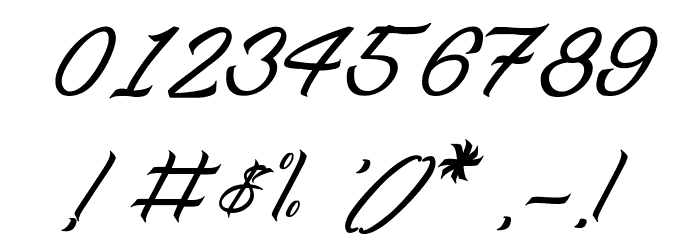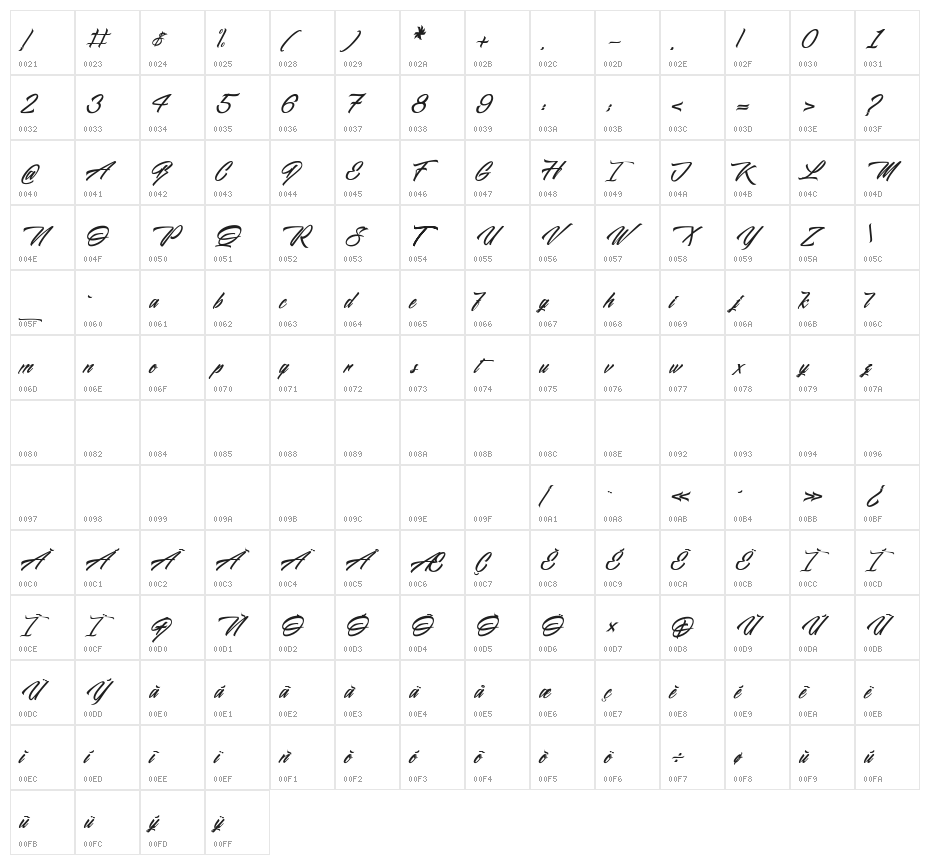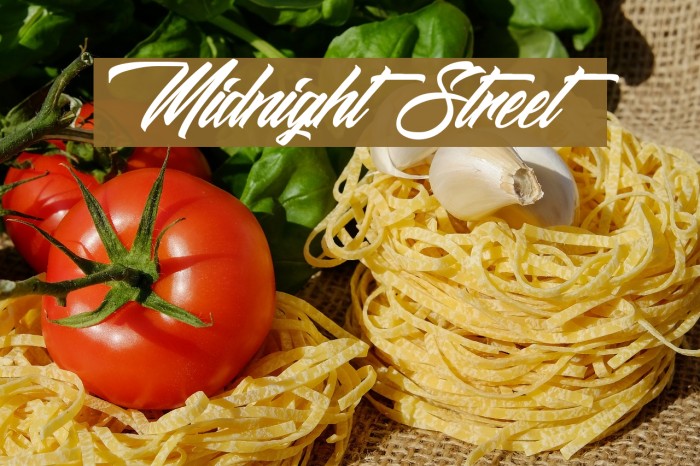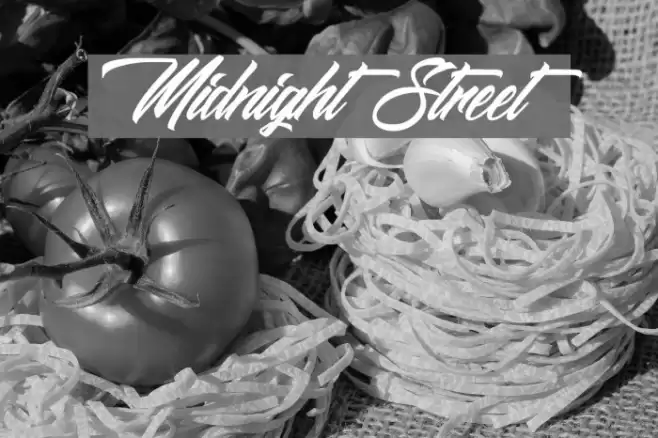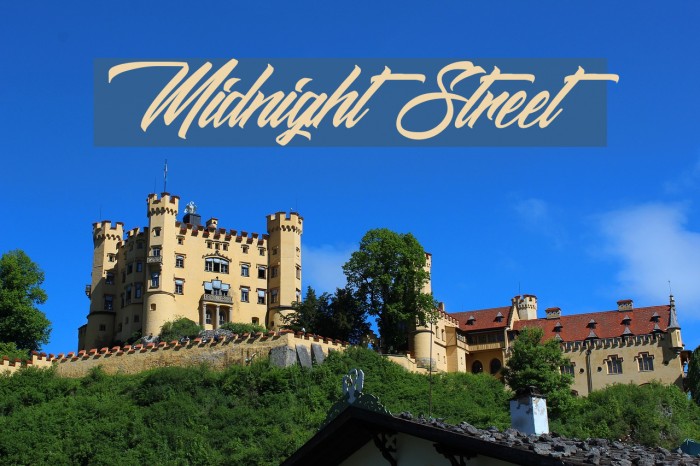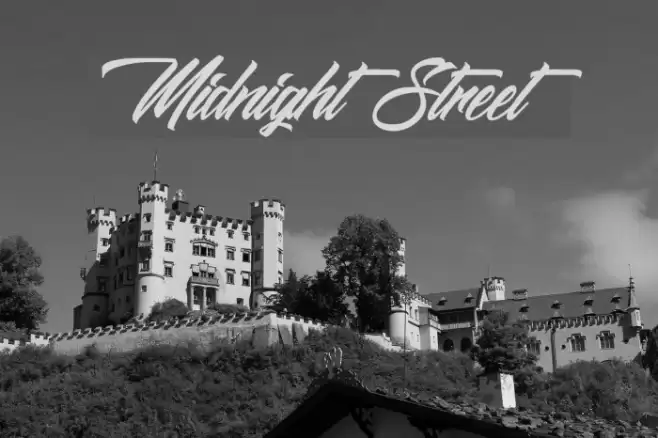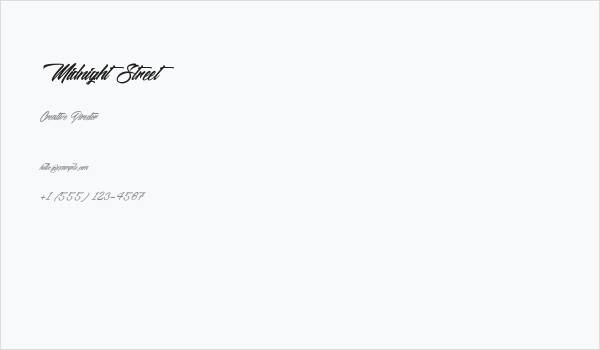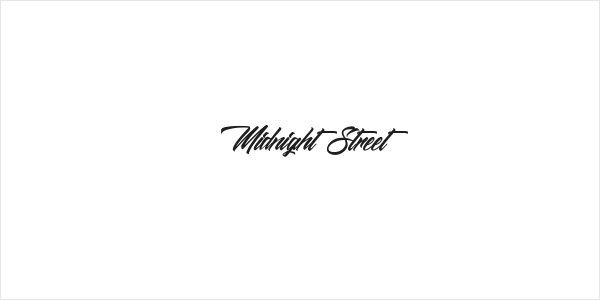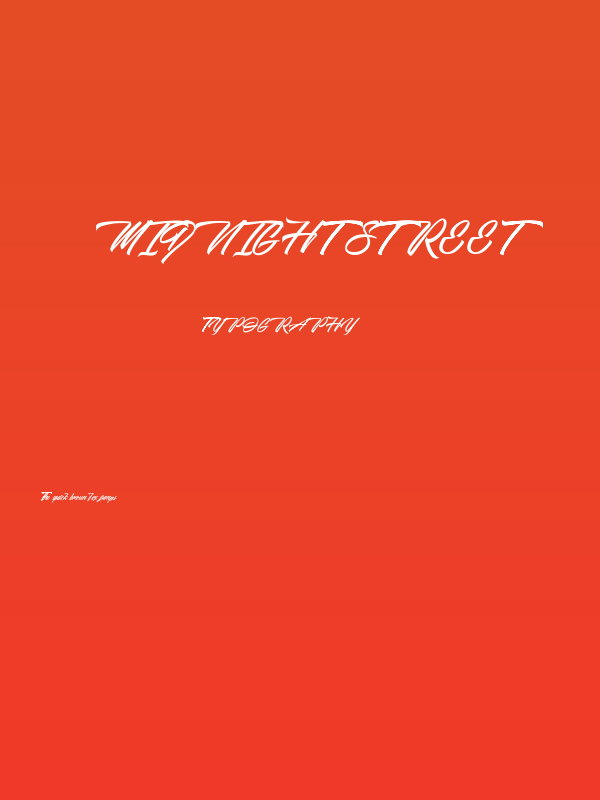
Midnight Street Font
Midnight Street Description
This font features a dynamic and expressive script style, characterized by its flowing, cursive letterforms. The strokes are bold and confident, with a slight slant that adds a sense of movement and elegance. Each character is intricately designed, with smooth curves and sharp edges that create a striking contrast. The uppercase letters are particularly elaborate, with extended flourishes that give the font a dramatic flair. The lowercase letters maintain a consistent flow, ensuring readability while retaining the font's artistic appeal. Numbers and special characters are crafted with the same attention to detail, making this font versatile for various design needs.